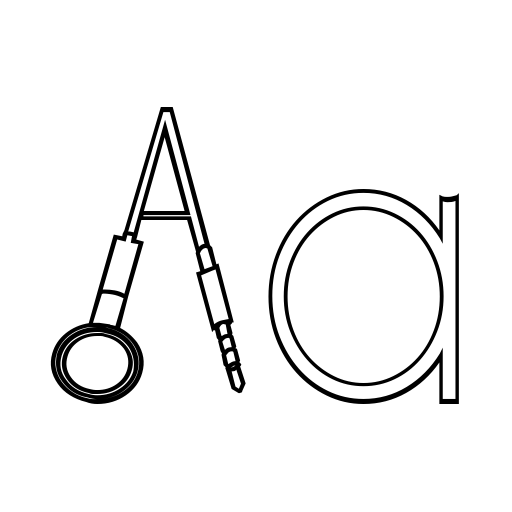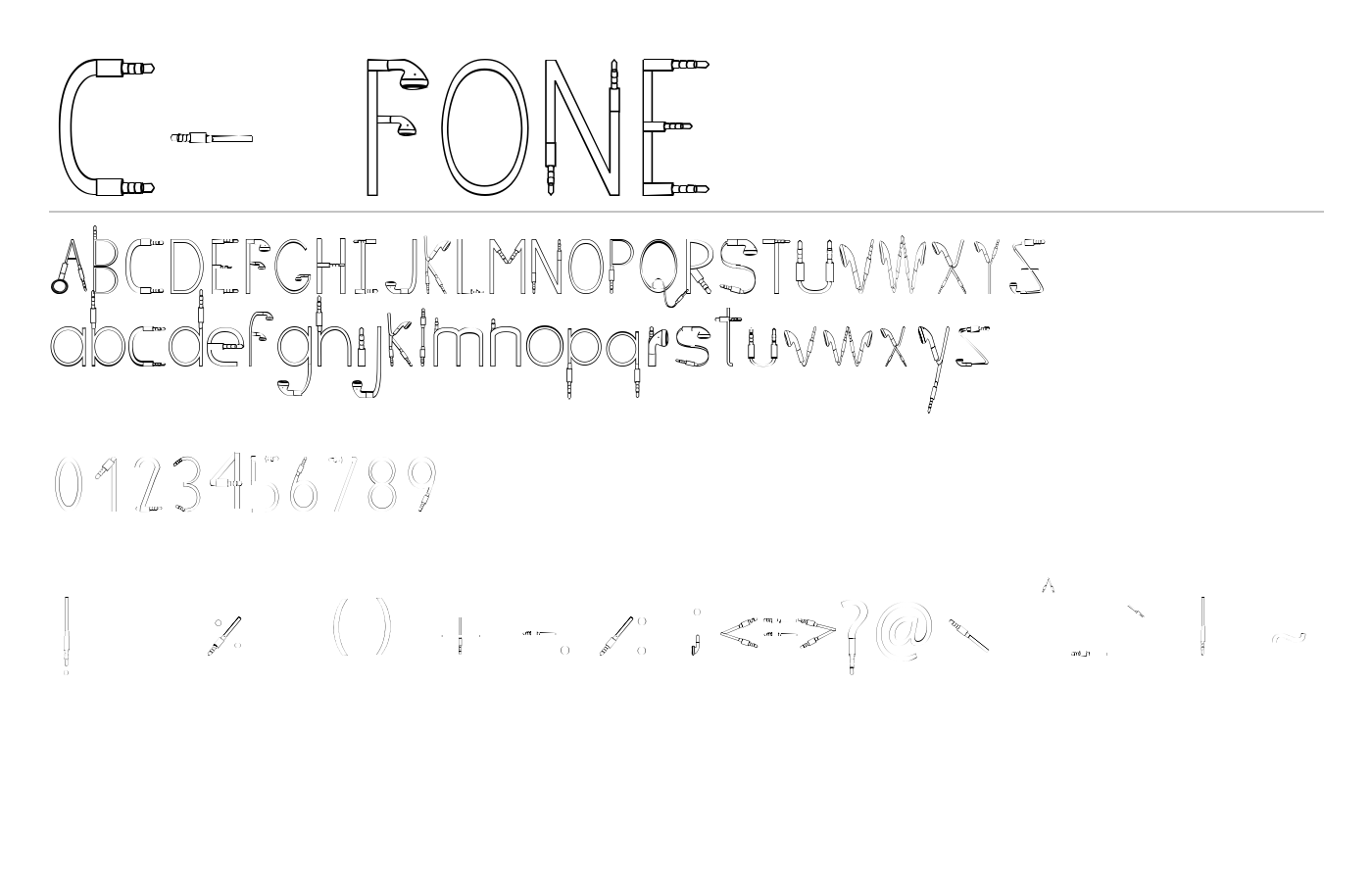
C-FONE is a playful and creative sans serif font that uniquely uses audio cable and plug motifs to form each character, giving it a light and modern feel. Its thin strokes, tall x-height, and delicate, geometric lines combine originality with a tech-inspired personality, making it perfect for music, technology, and entertainment branding or eye-catching headlines. This font stands out best in display uses where its quirky and innovative style can be fully appreciated.
C- FONE Font